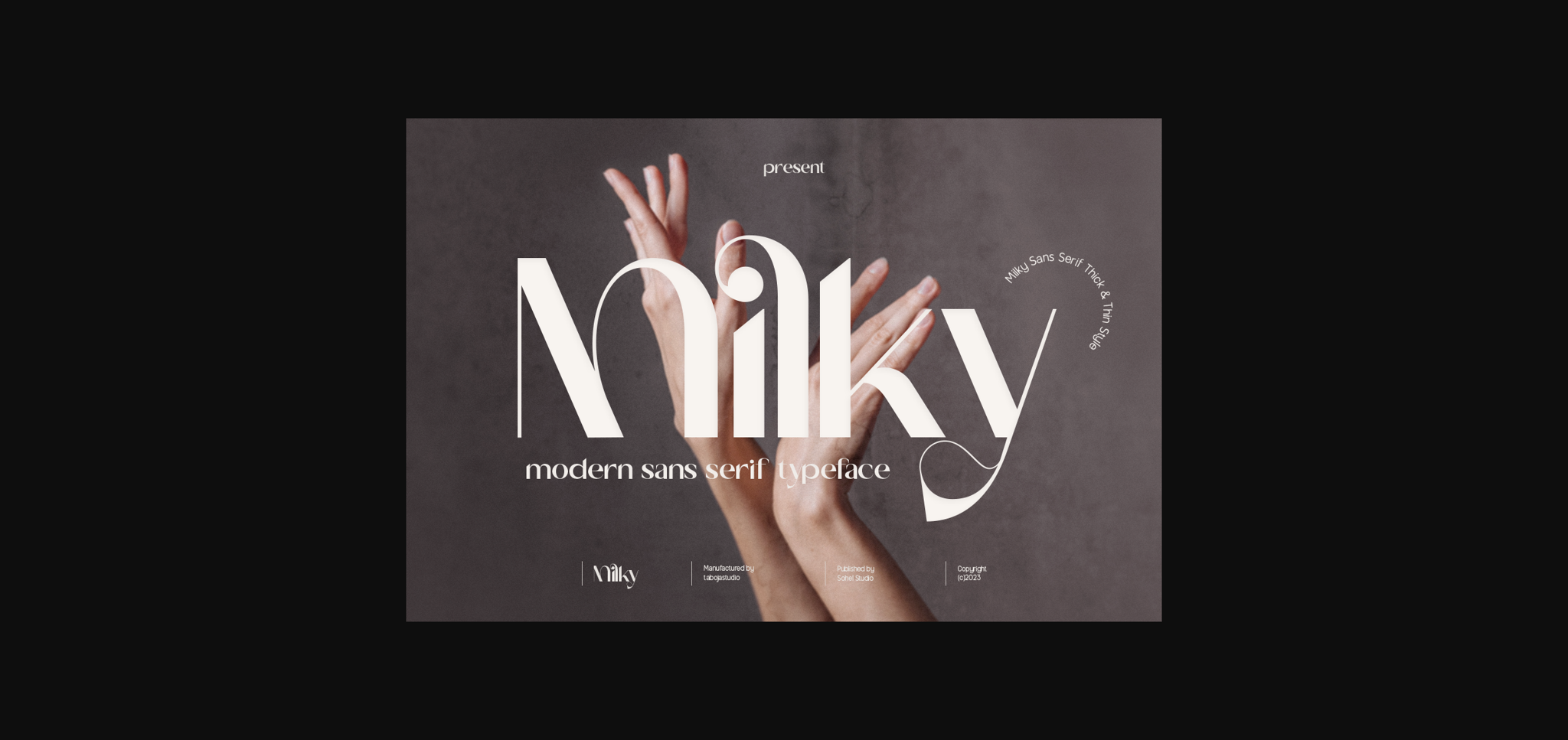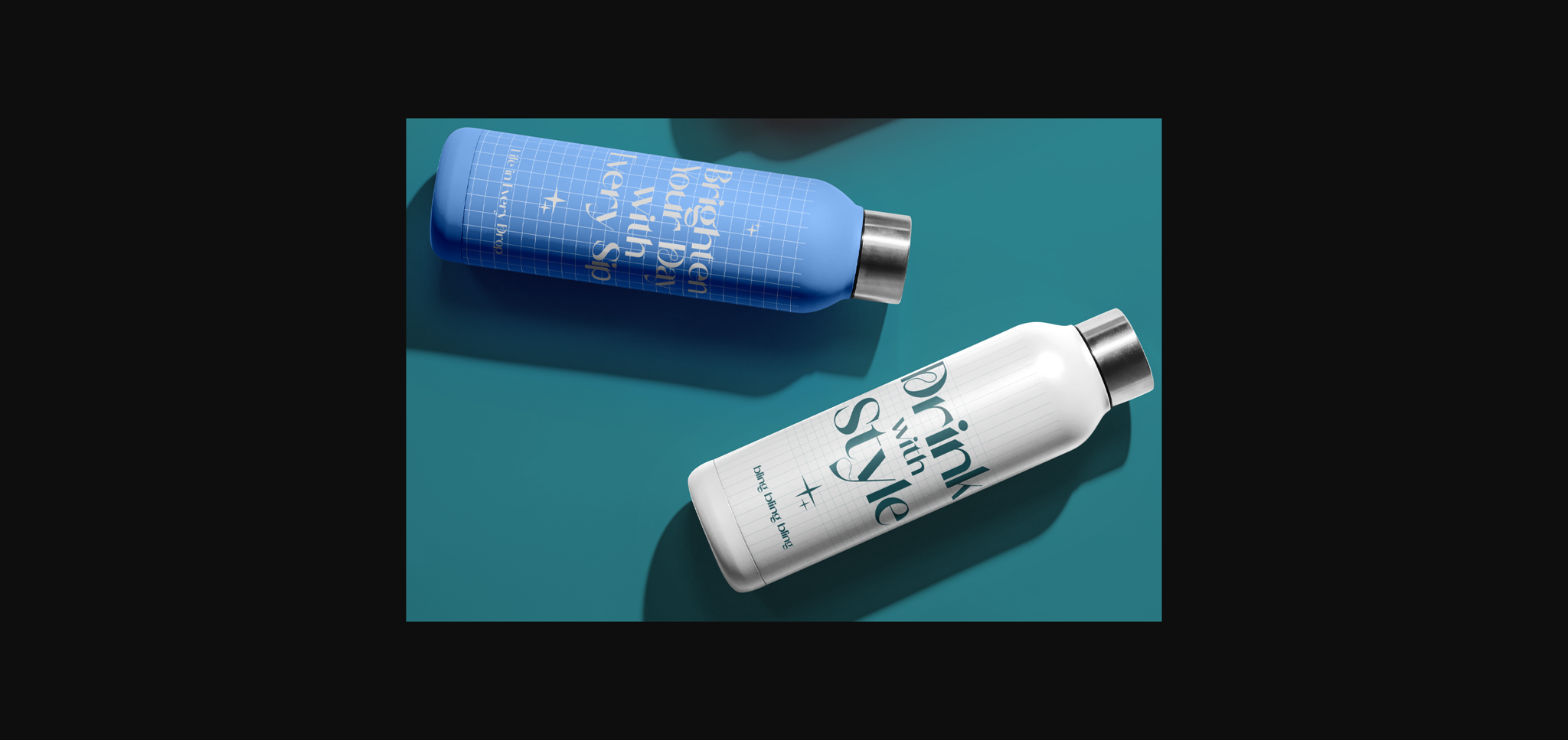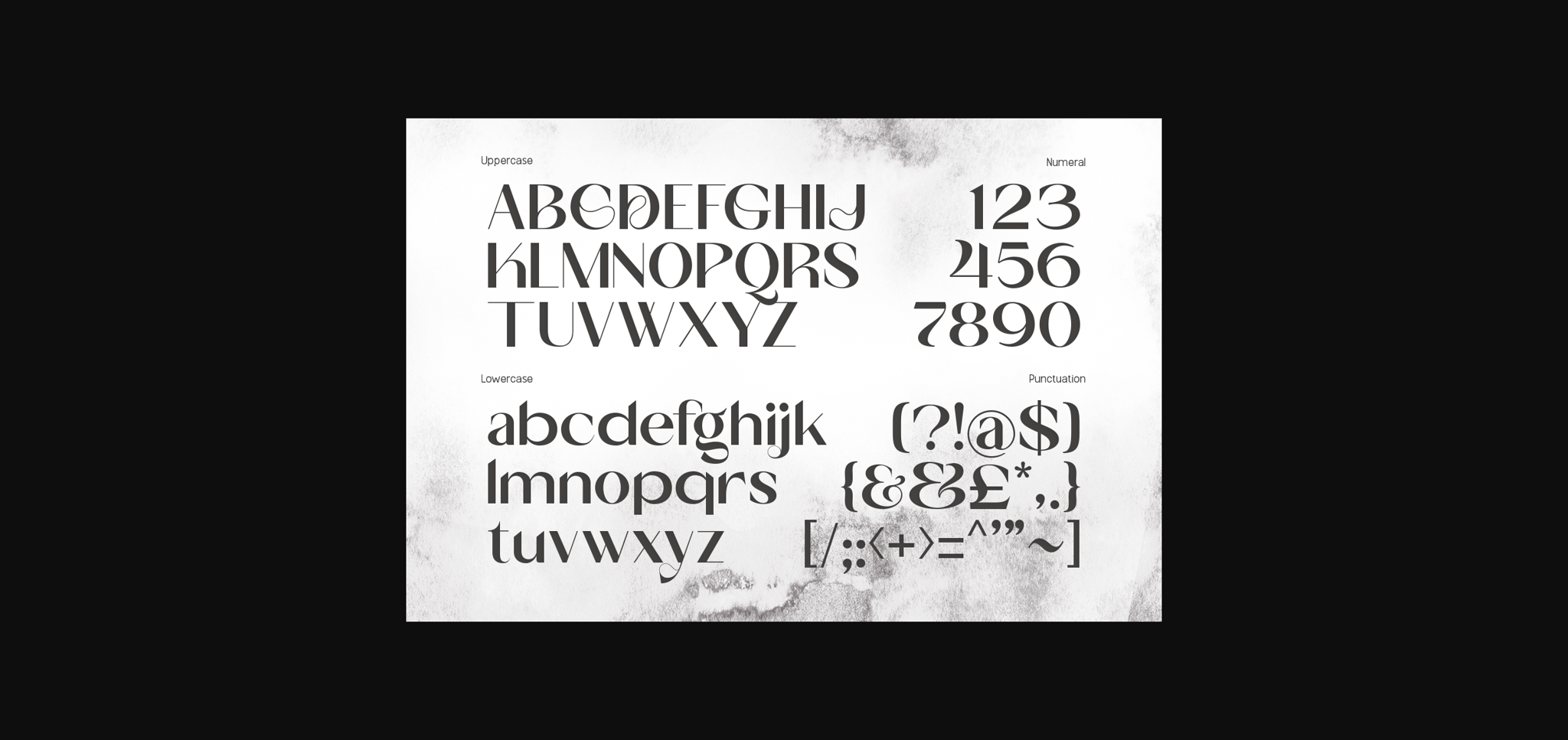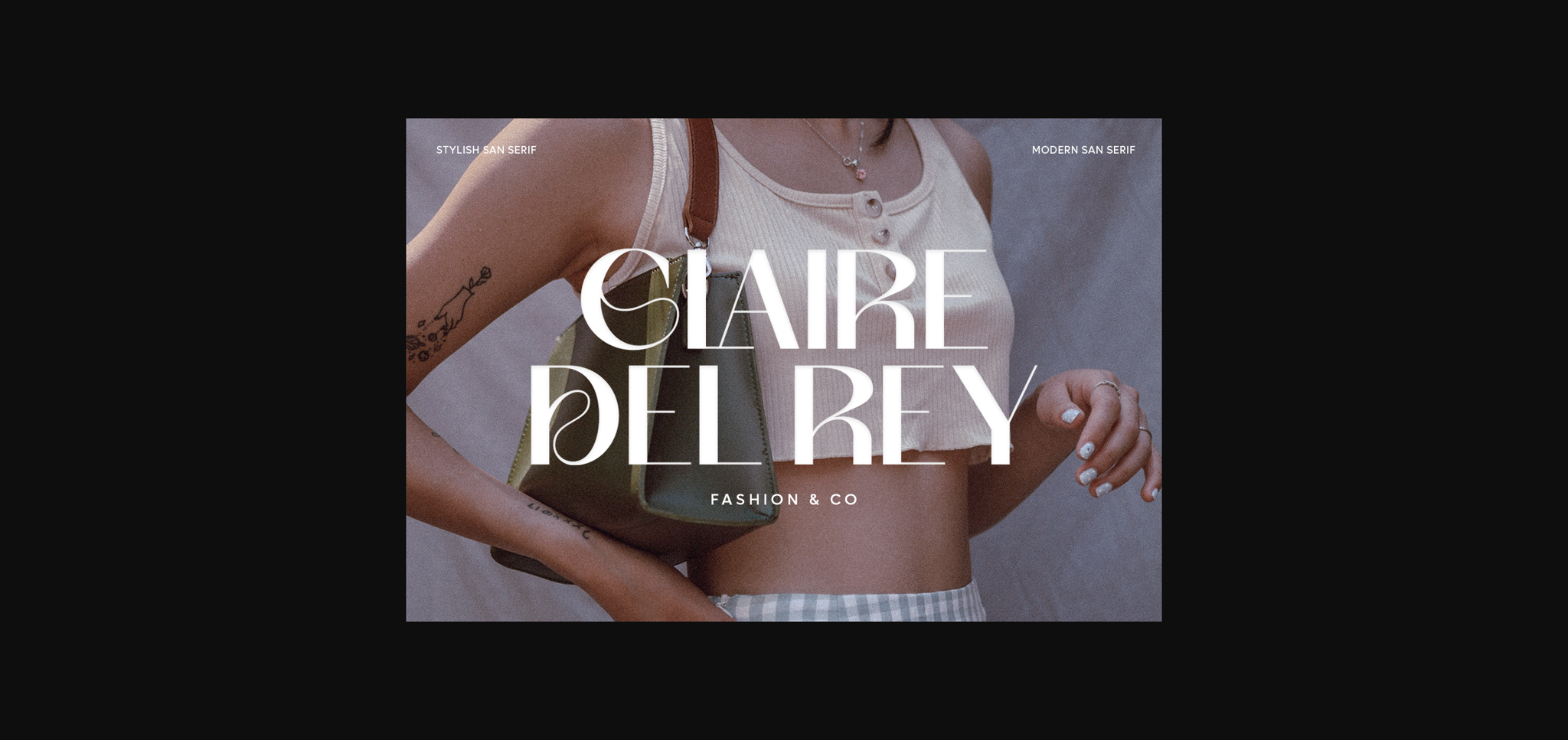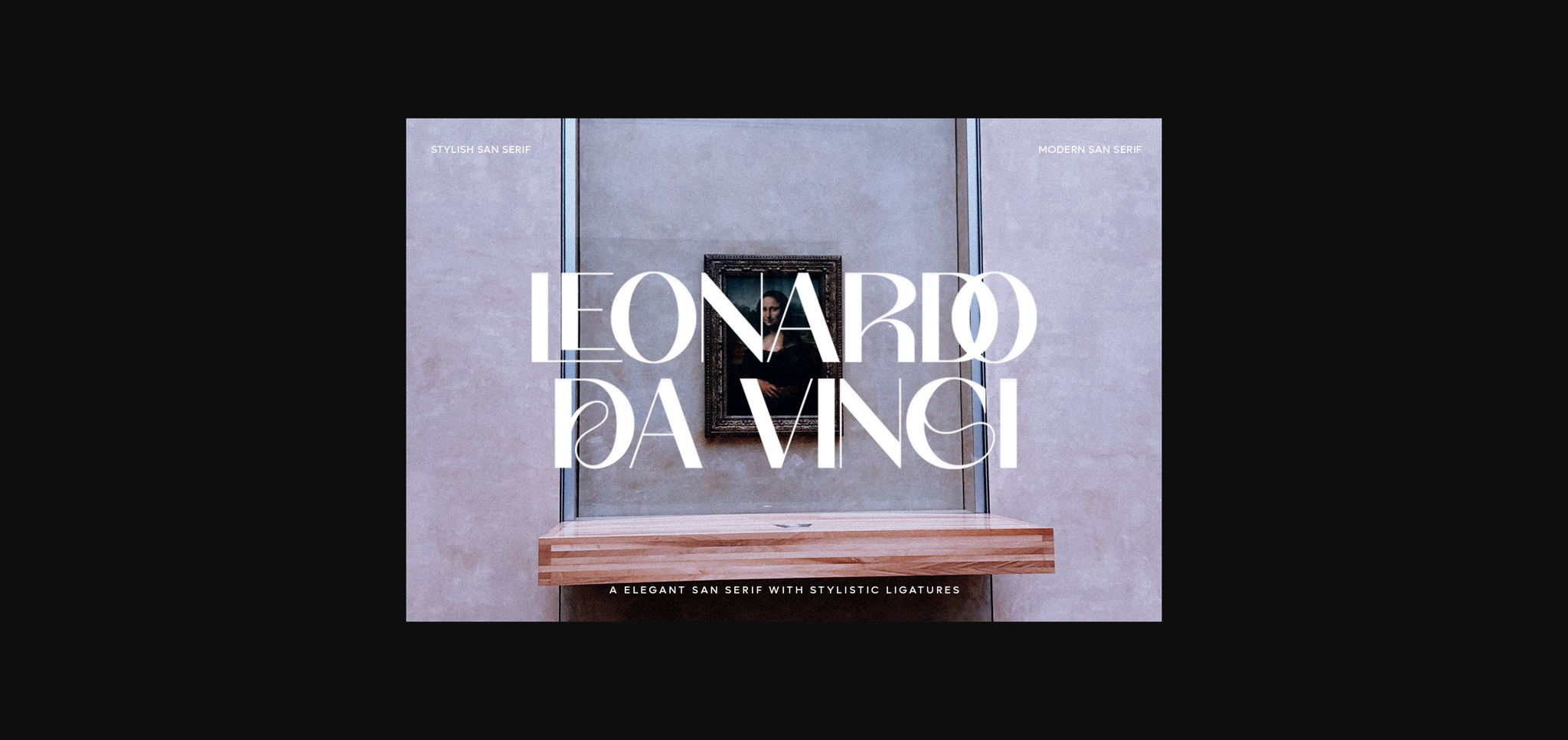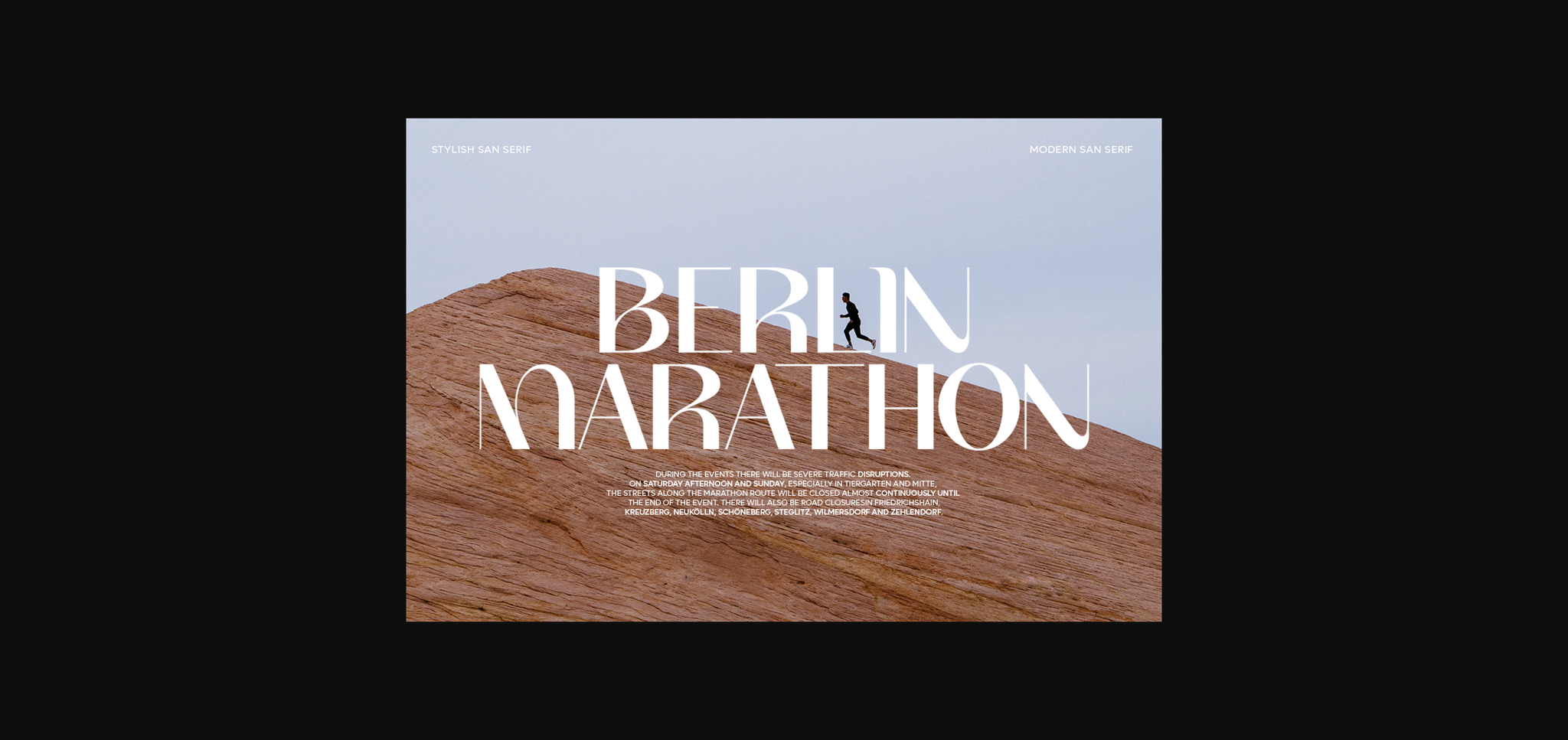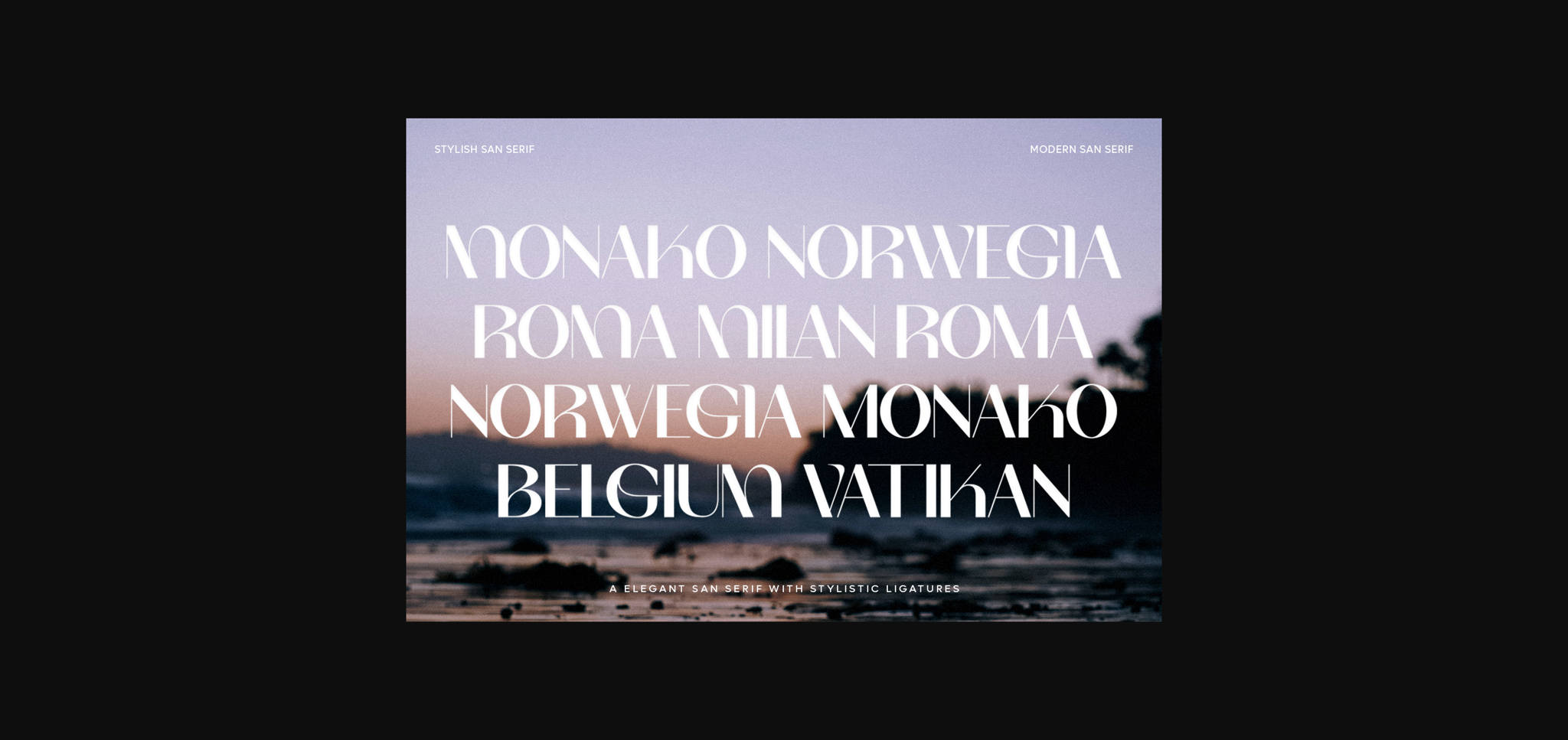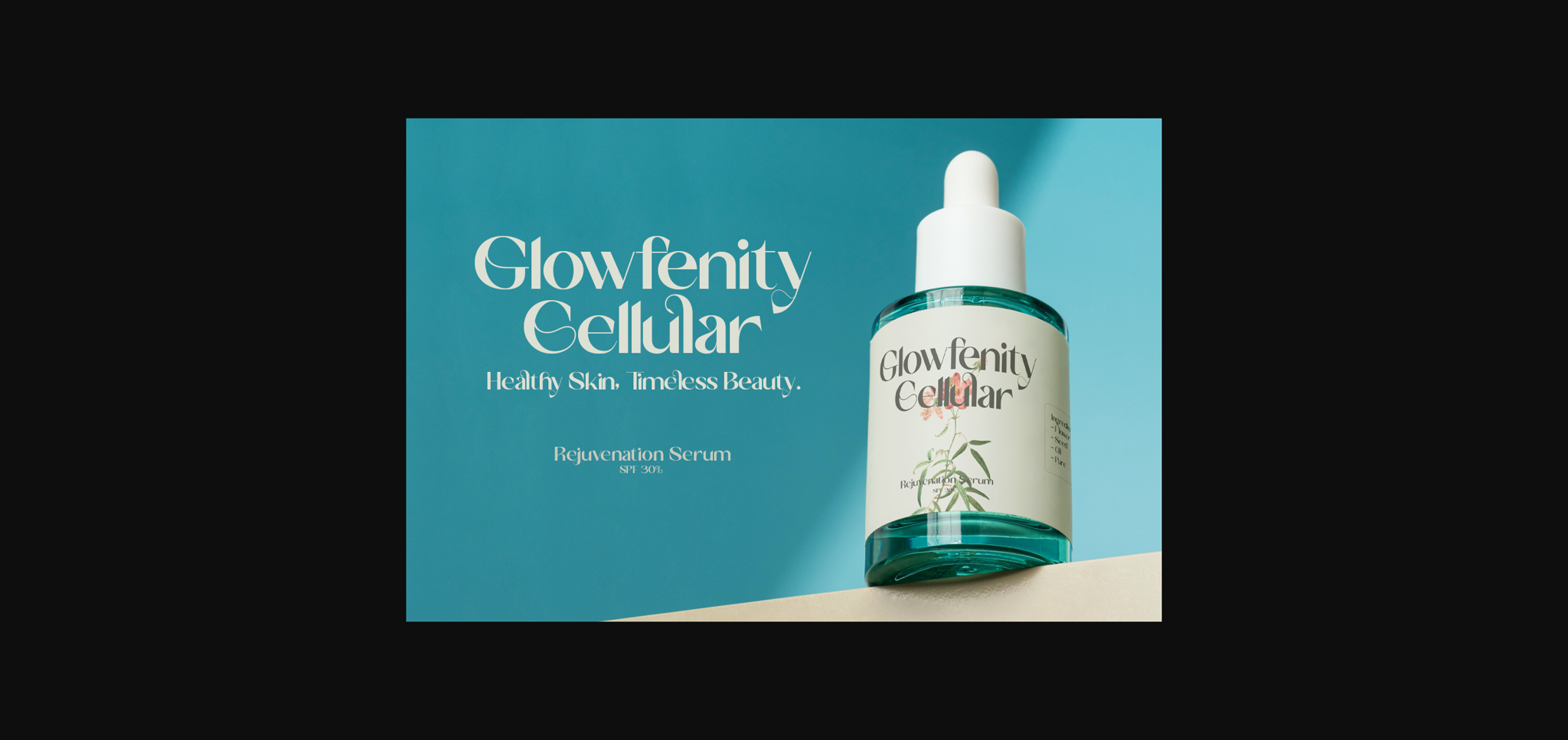
About Milky Font
Introducing Milky Sans Serif Display Font, a captivating fusion of bold and thin elements in every letterform. This versatile typeface is meticulously crafted to bring a perfect balance of strength and finesse to your designs.
With a harmonious blend of thick and thin strokes, this font delivers a modern and dynamic aesthetic that effortlessly suits a variety of design applications. Its sleek lines and contemporary feel make it an ideal choice for branding, headlines, and eye-catching displays, ensuring your message stands out with confidence.